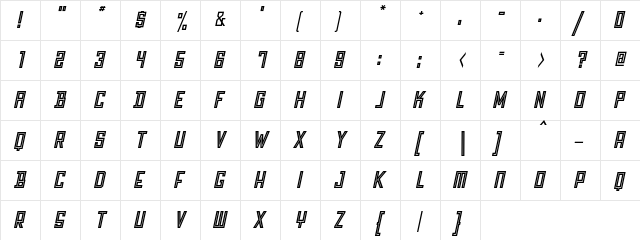
Grizzly Bear 2 Inline Italic Regular
| Foundry | Alex Sheldon for Match and Kerosene |
| Designer | Alex Sheldon for Match and Kerosene |
Design Context for Grizzly Bear 2 Inline Italic Typeface
Grizzly Bear 2 Inline Italic is built around its visual character rather than neutral utility — its distinctive forms are designed to make an impression at display sizes. The slanted form adds forward momentum and visual energy.
Font Pairing: Pair with a clean neutral sans-serif for body copy to let Grizzly Bear 2 Inline Italic's character lead without overwhelming the composition.
Pro Tip: Use Grizzly Bear 2 Inline Italic exclusively at display sizes — it was designed to be seen, not read at length. Let a neutral companion handle body copy.